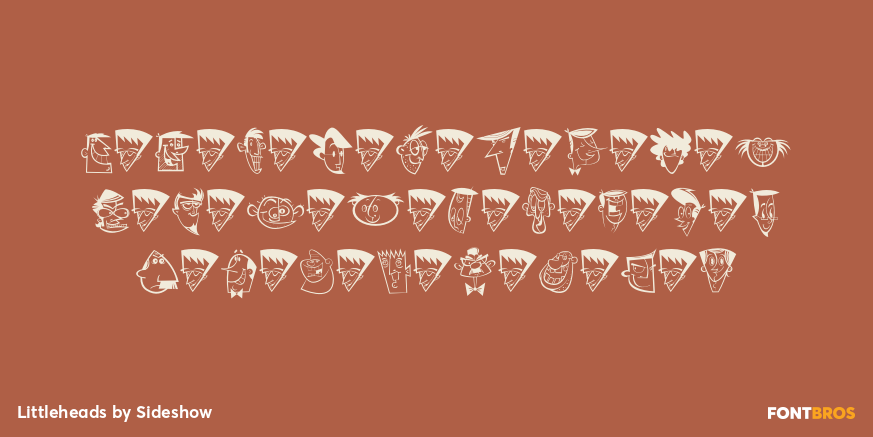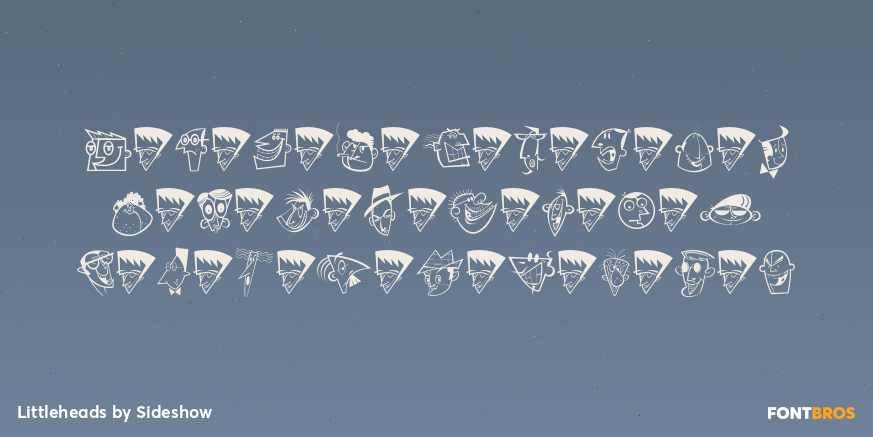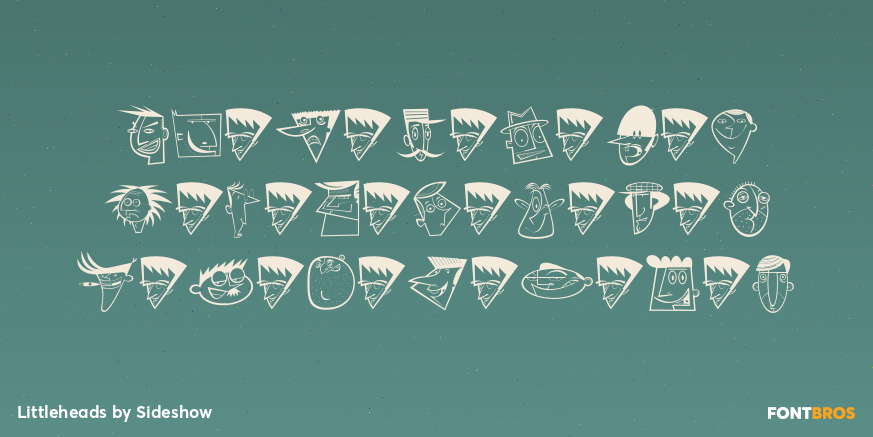
Littleheads
Font Family by Sideshow
Some are funny, some are goofy, some are happy, some are pretty, some are cute and some are ugly but they're all Littleheads. Jazz up your graphic needs with these fun little faces of men, women and children. Ideal for logos, business cards, newsletters, invitations and more. The possibilities are endless. Take pleasure in creating your own masterpieces that induce enjoyment.